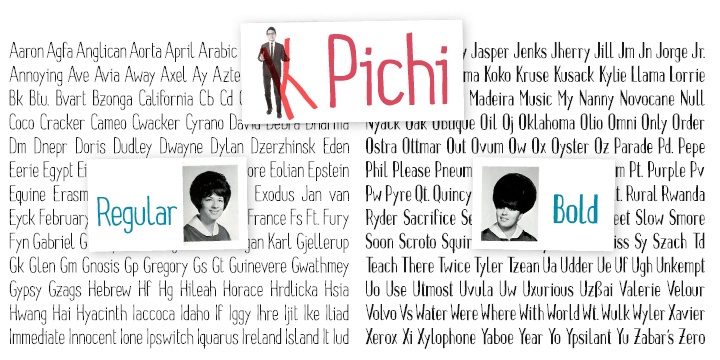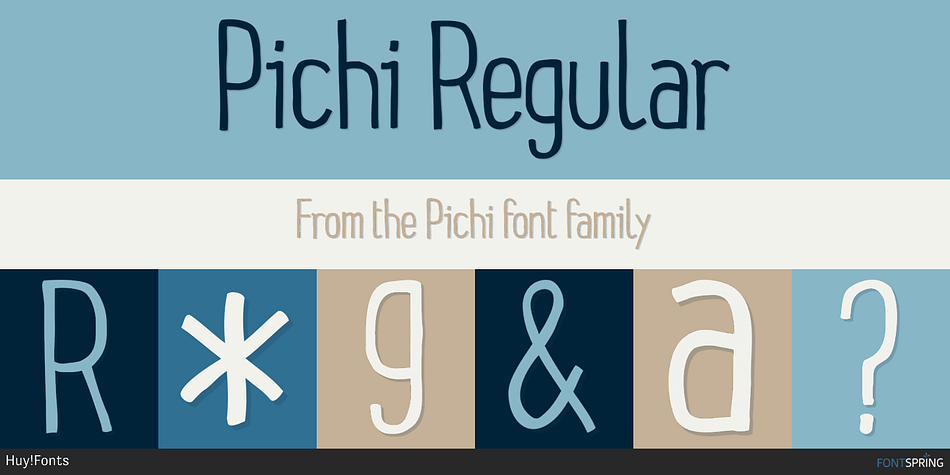
Pichi Regular
Pichi is a hand drawn font family. This typeface has two styles and was published by Huy!Fonts.
Pichi is an informal handwritten display font, suitable for display use or even in larger texts in children
Pichi is an informal handwritten display font, suitable for display use or even in larger texts in children’s books.